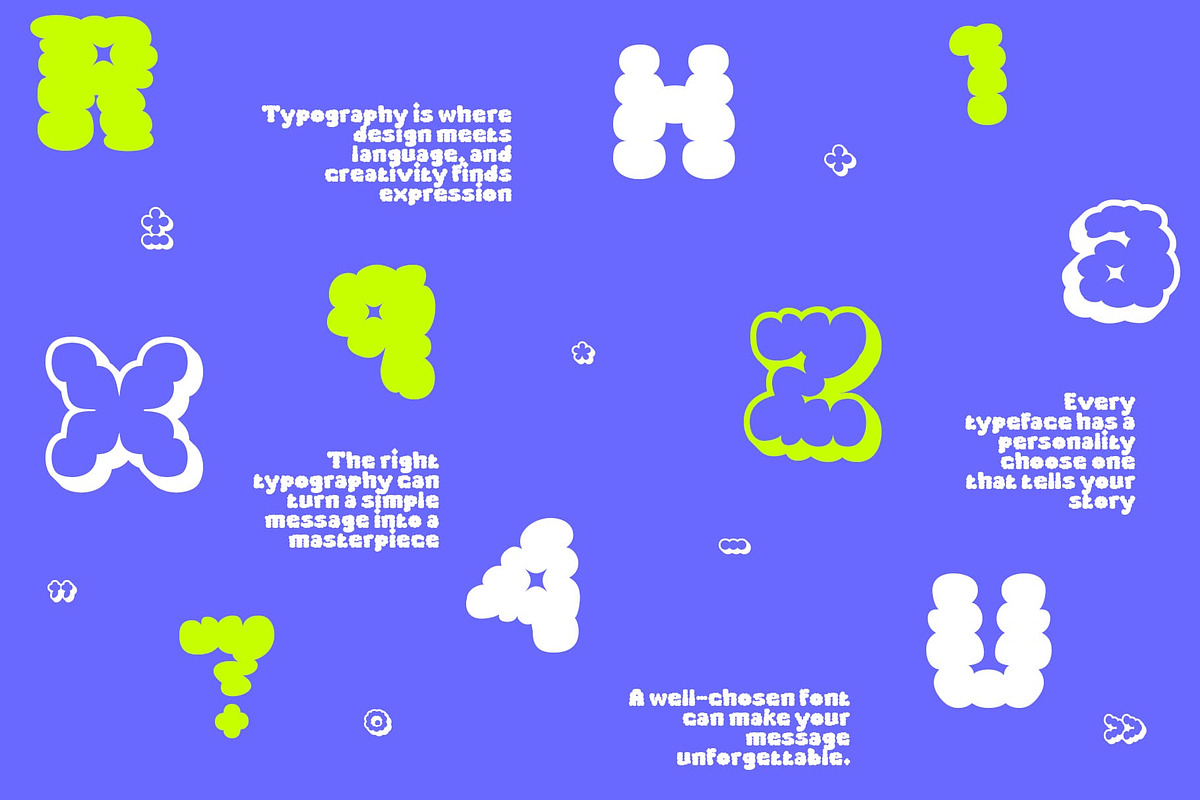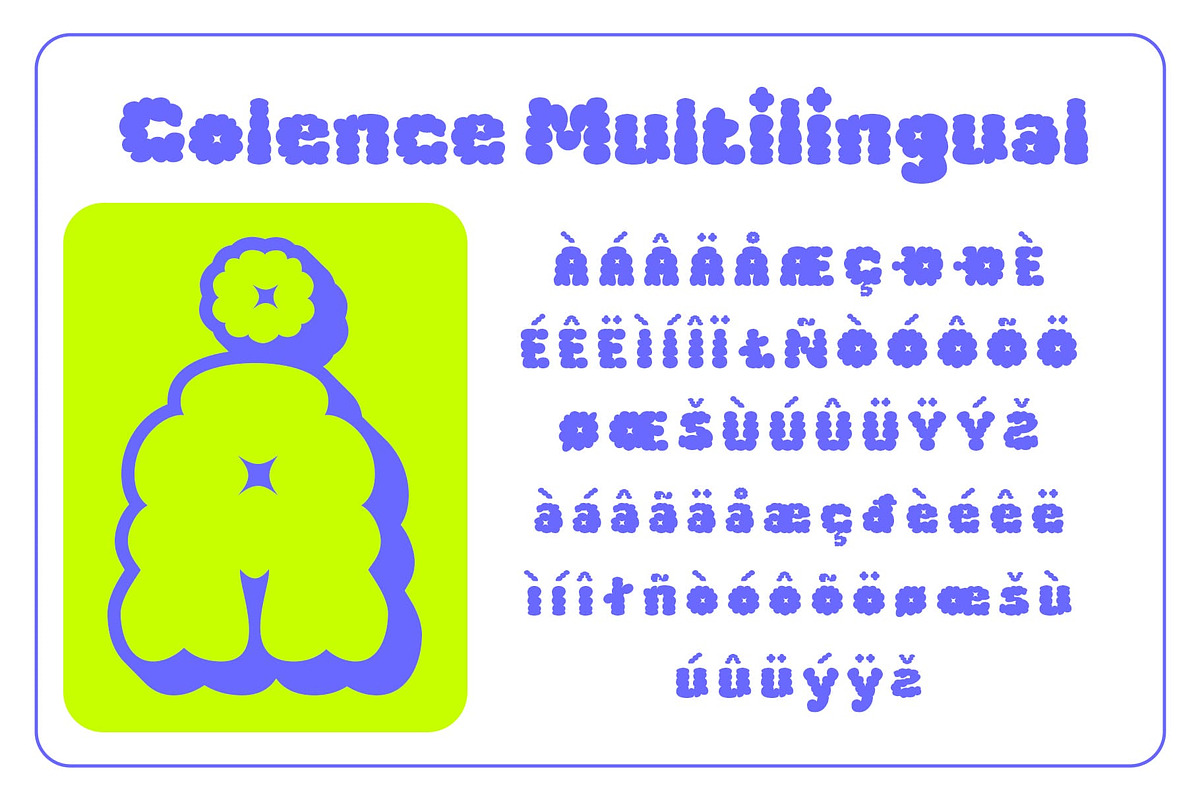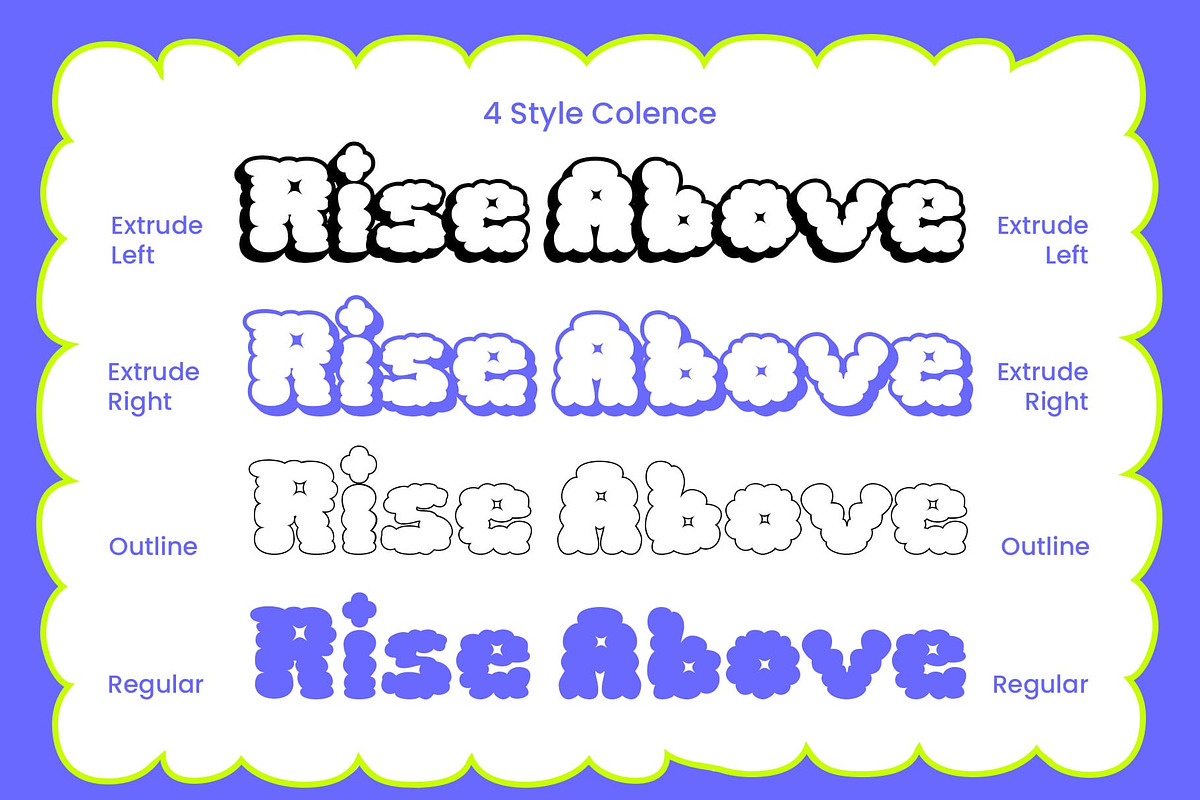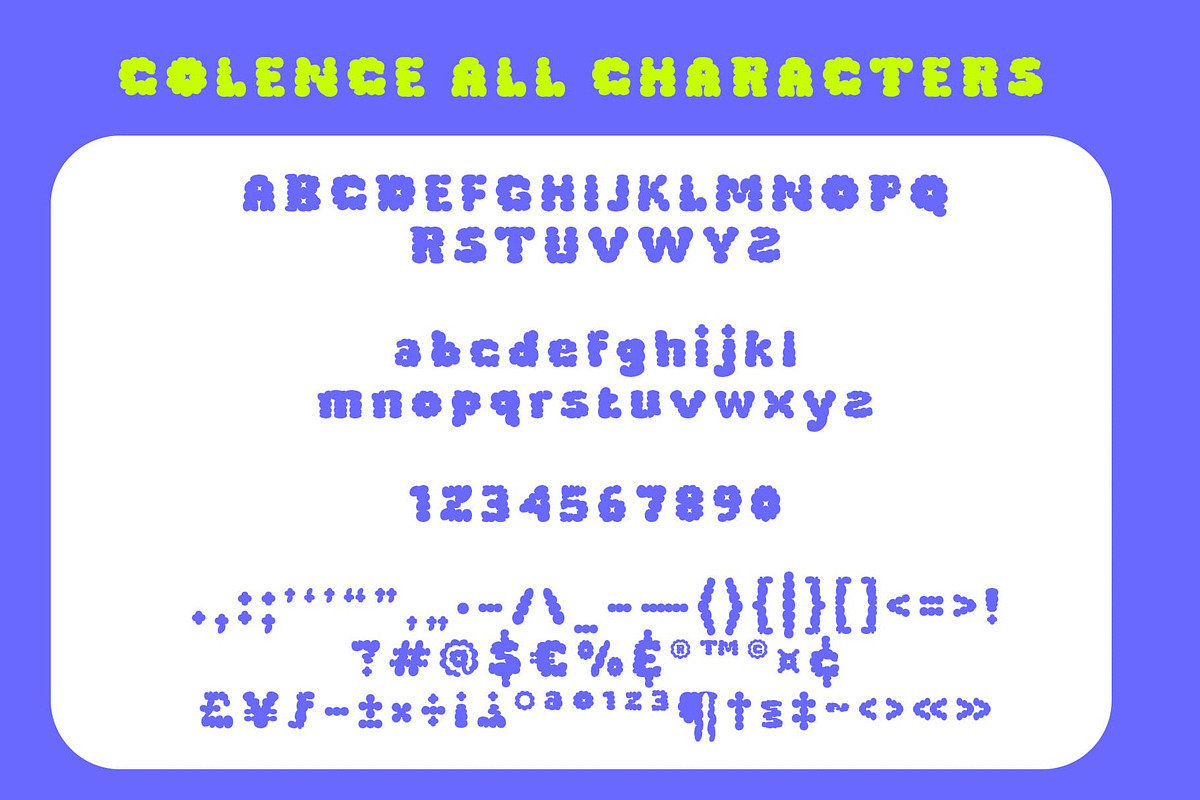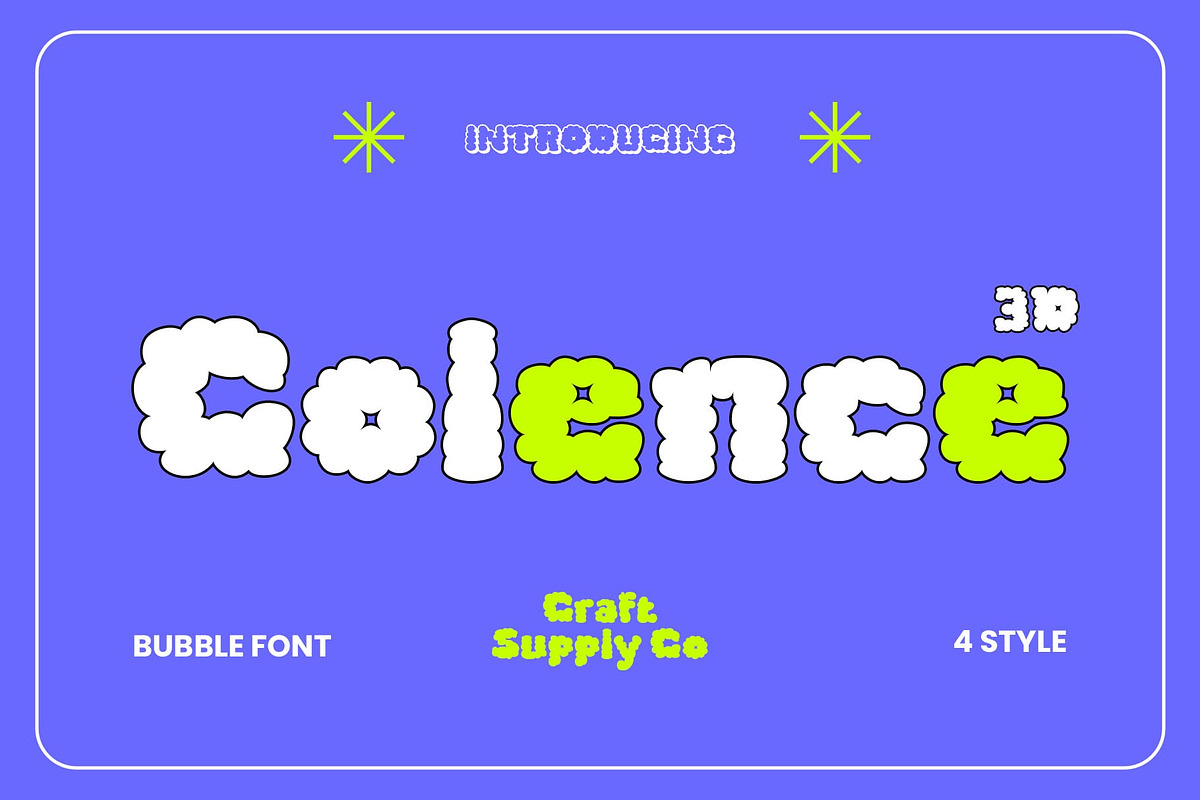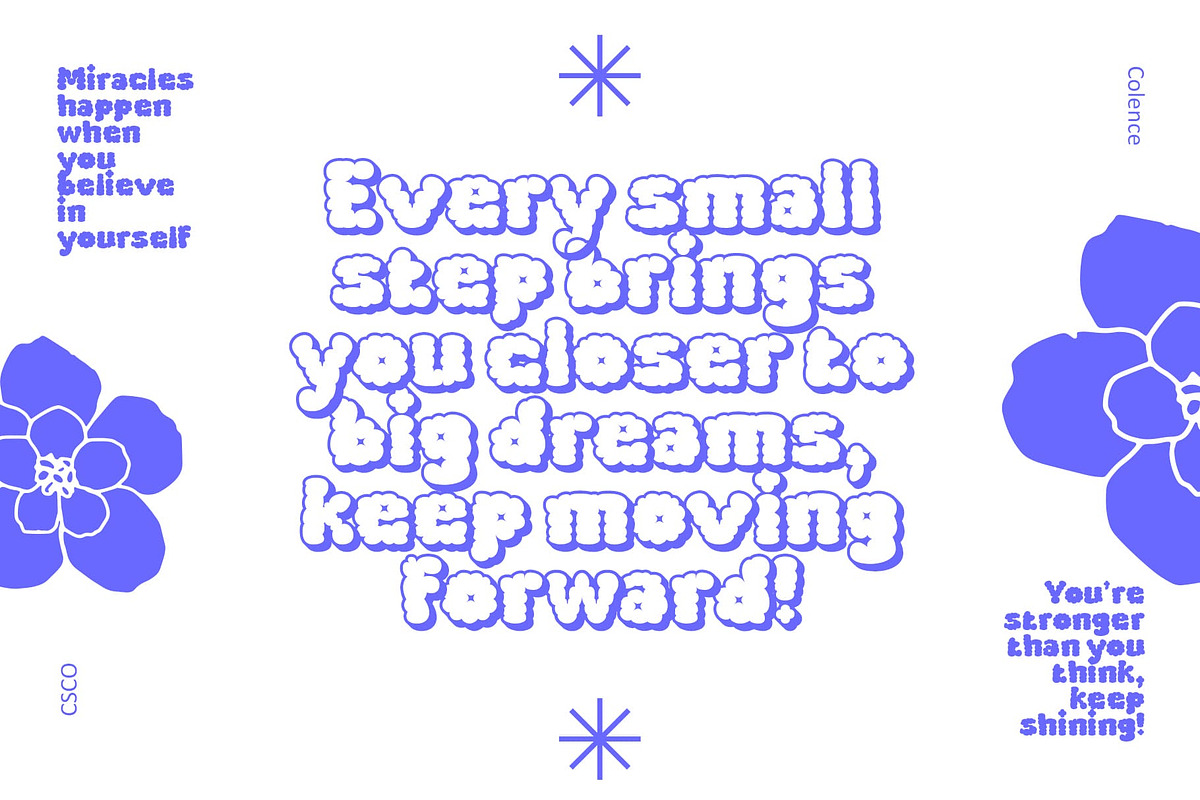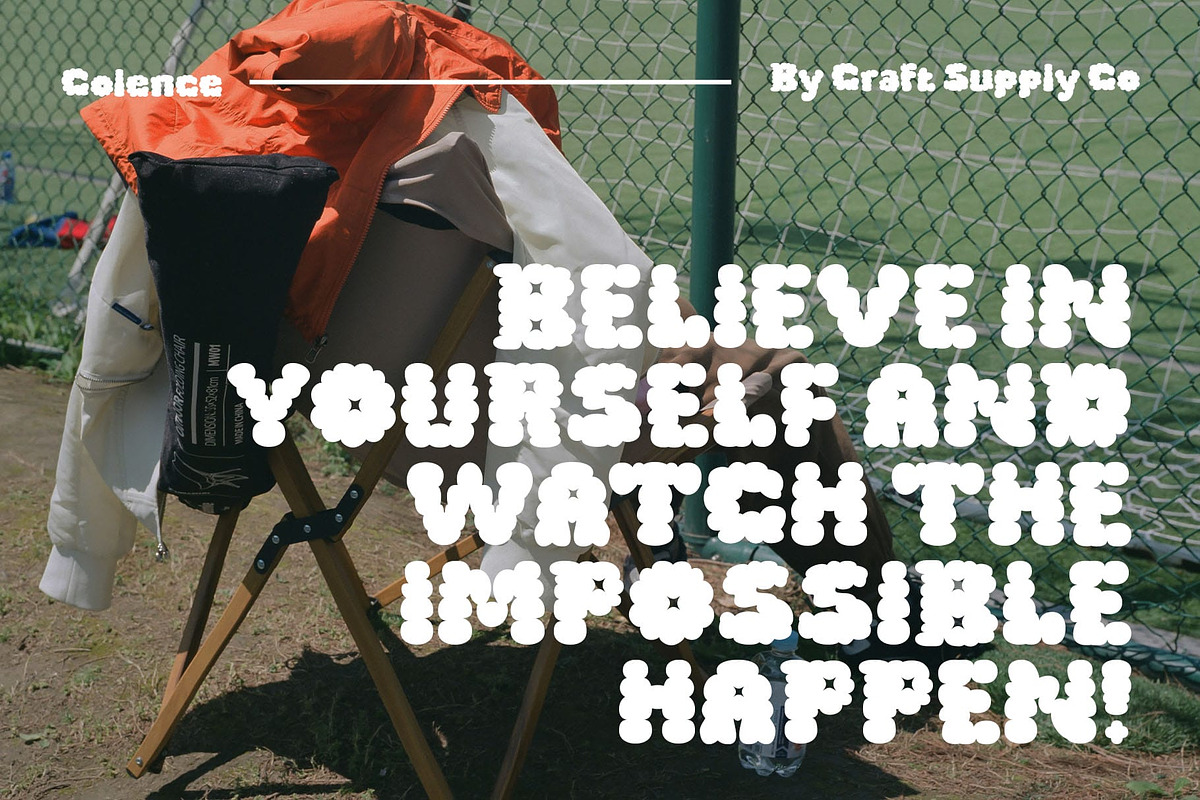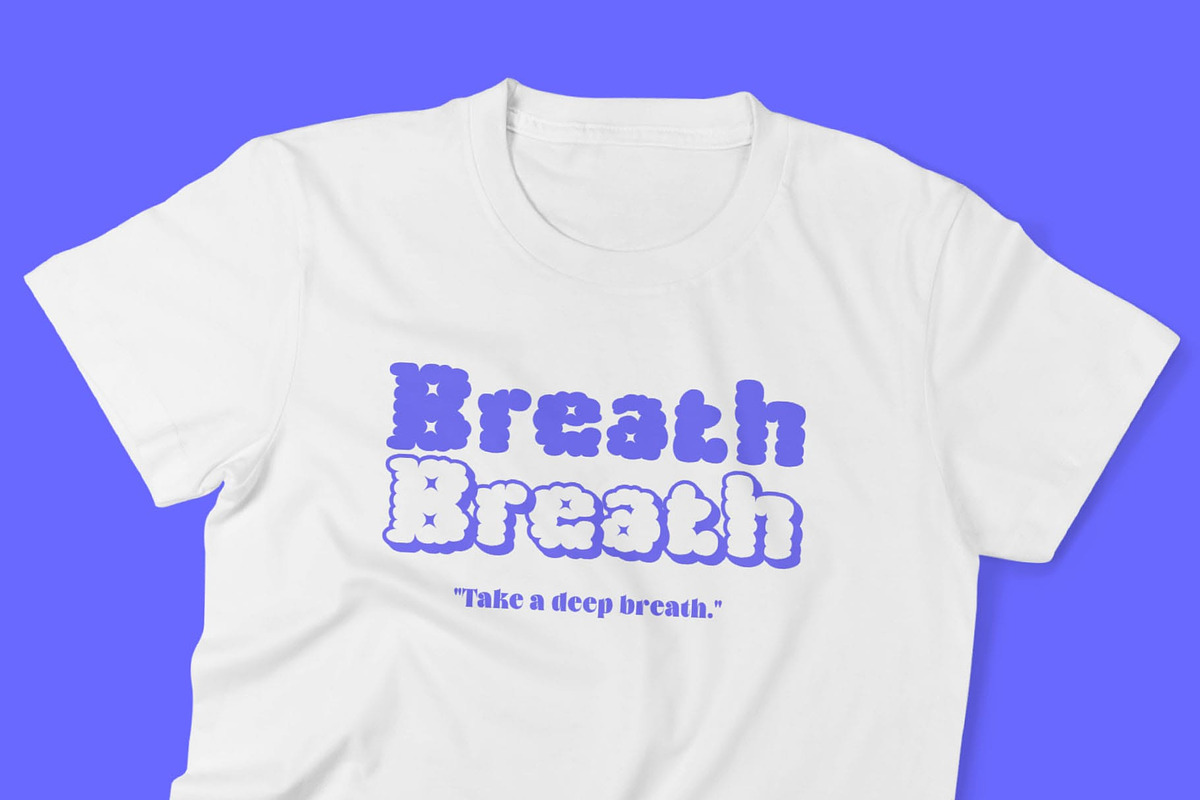
Colence 3D
Colence 3D – Bubble-Inspired Display Font
Playful and Fun with a 3D Twist Colence 3D is a bubble-inspired display font that features soft, rounded letterforms, reminiscent of floating clouds. With its 3D effect, the font gains added depth and dimension, creating a vibrant, cheerful, and energetic atmosphere. The playful, bubbly design makes it perfect for projects that need to radiate positivity and capture attention, offering a fun and modern look that adds personality to any design.
Dynamic and Engaging Visual Impact The 3D elements in Colence 3D bring the font to life, adding movement and depth to its round, cloud-like shapes. This unique combination of playful design and dimensionality makes it ideal for event posters, children’s branding, and any creative project that aims to evoke excitement and joy. Its bold, dynamic appearance ensures that it stands out, making it perfect for designs that require an eye-catching, cheerful look.
Perfect for Playful and Energetic Projects Whether used in advertisements, posters, or product branding, Colence 3D excels at conveying a sense of fun and lightheartedness. Its cute, rounded shapes paired with the 3D effect create a friendly and approachable style that is sure to attract a wide audience. It’s especially ideal for projects targeting children, youth, or events designed to inspire happiness and creativity.
- Colence Regular
- Colence Outline
- Colence Extrude Right
- Colence Extrude Left